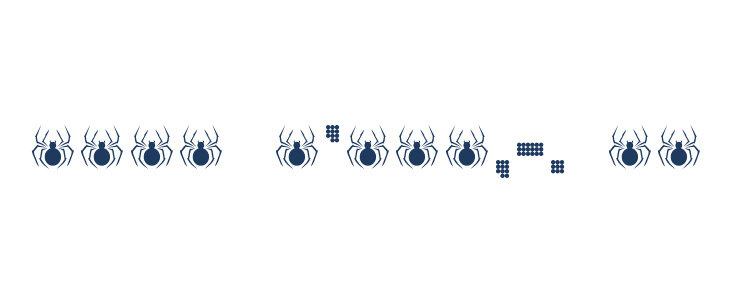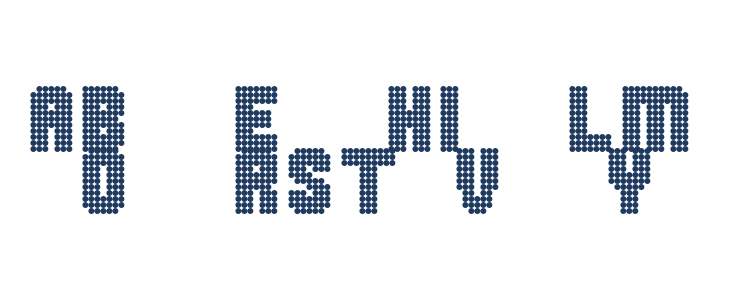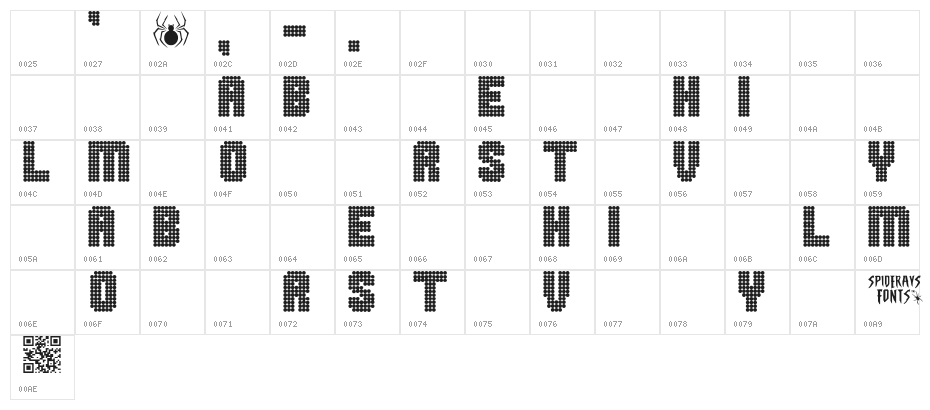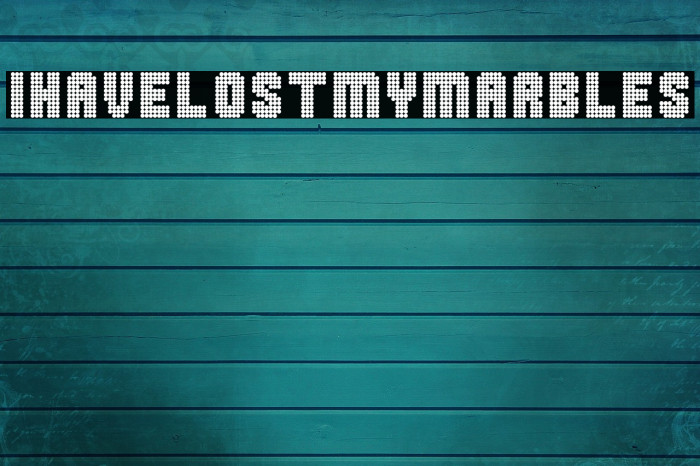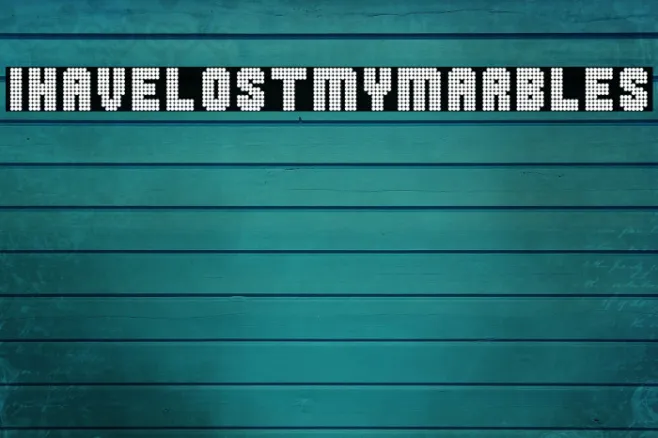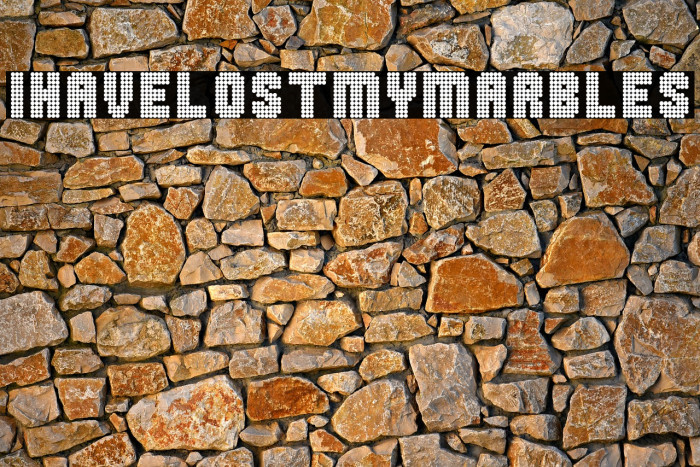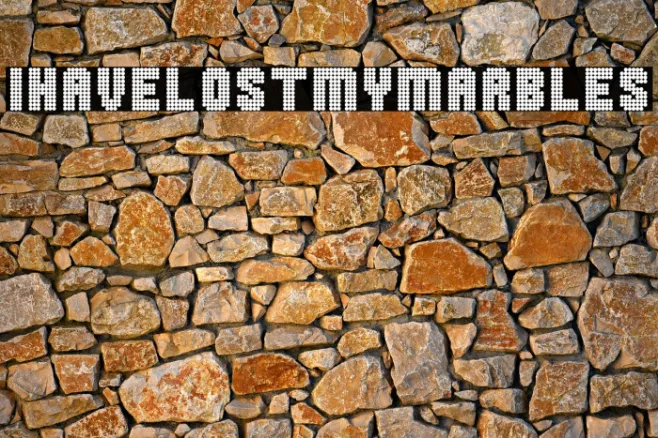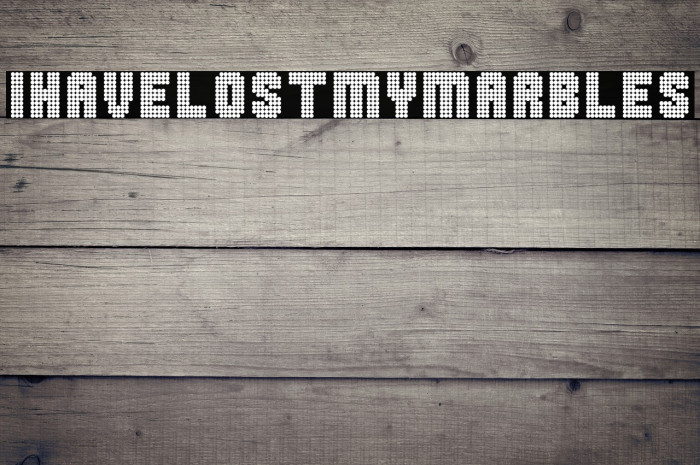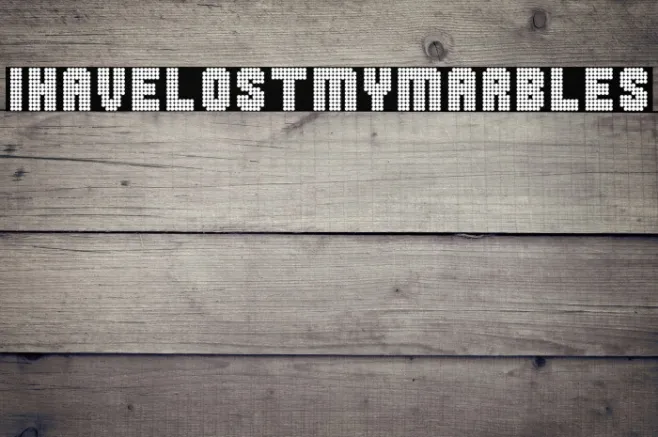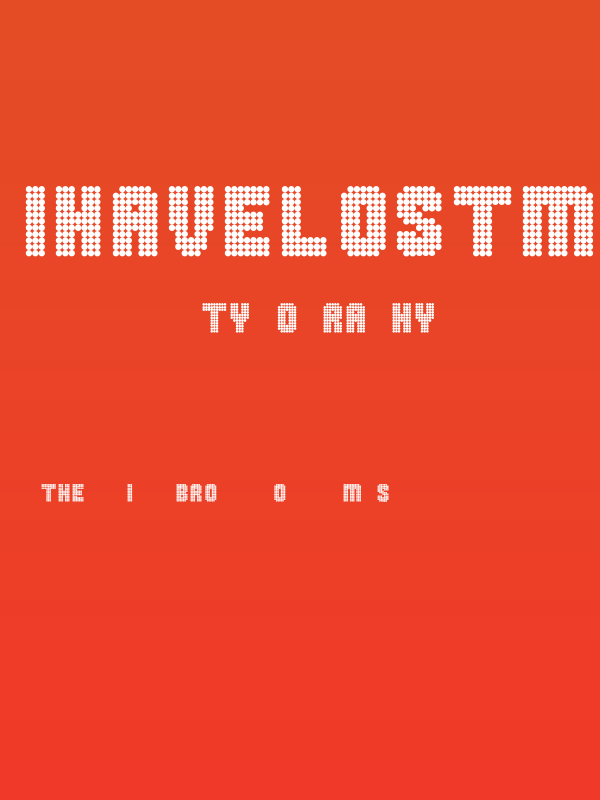
IHAVELOSTMYMARBLES Font
IHAVELOSTMYMARBLES Description
This font is a unique and playful design composed entirely of small dots forming each character. The letters are bold and blocky, creating a distinct and eye-catching appearance. The use of dots gives it a pixelated, retro feel, reminiscent of digital displays or LED signs. The characters are evenly spaced, maintaining a consistent and structured look. This font is particularly striking due to its unconventional style, making it suitable for creative and modern projects. It stands out with its decorative and artistic flair, ideal for grabbing attention.
| Overall Style | Modern, Retro |
| Proposed Projects | Ideal for digital art, retro-themed designs, posters, and creative branding. |